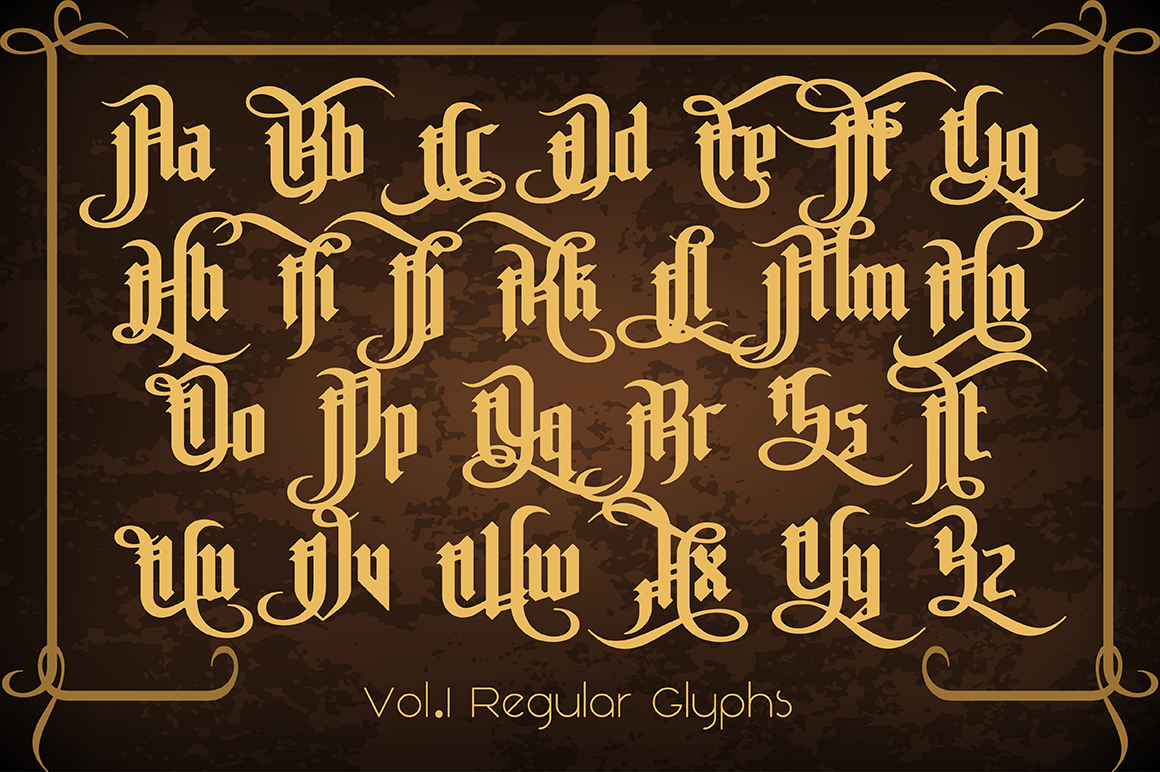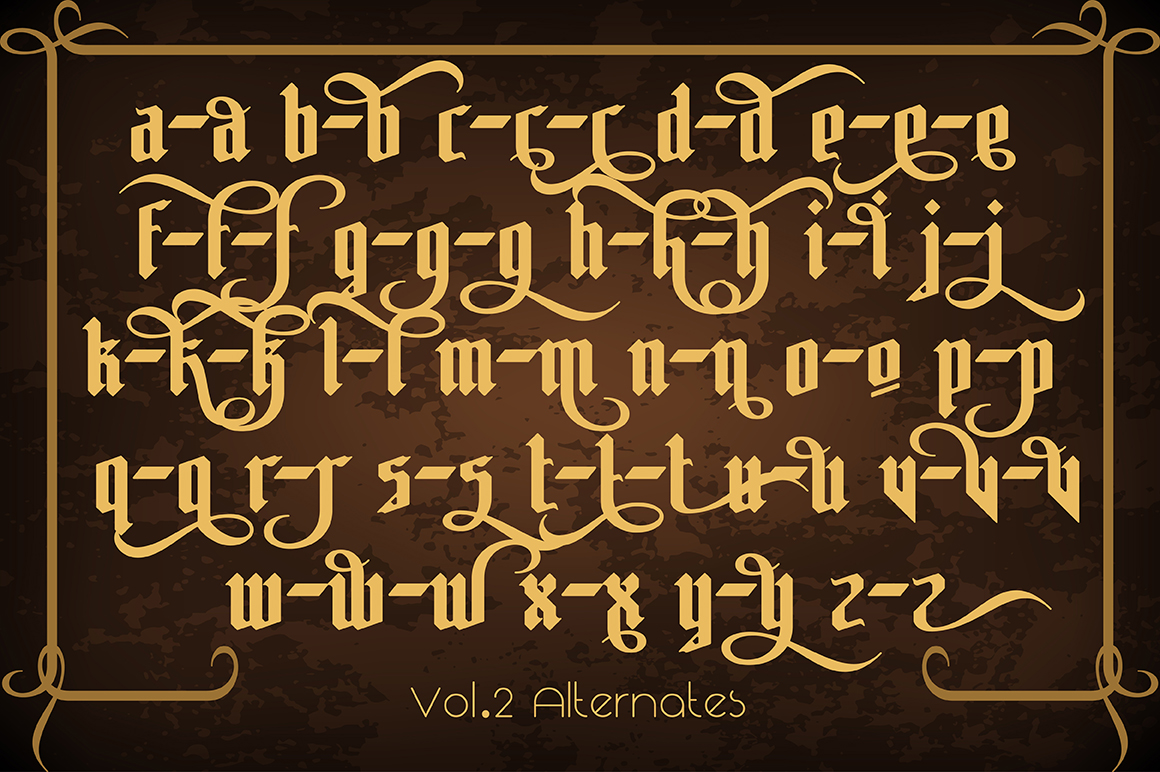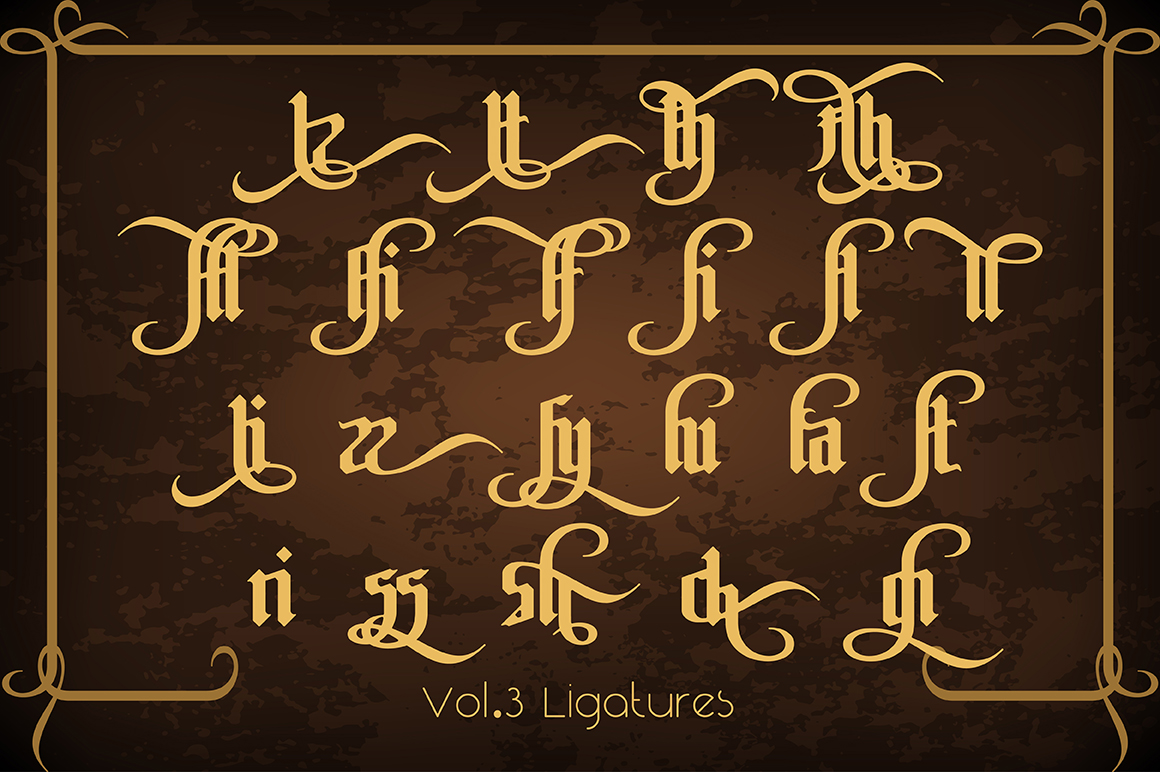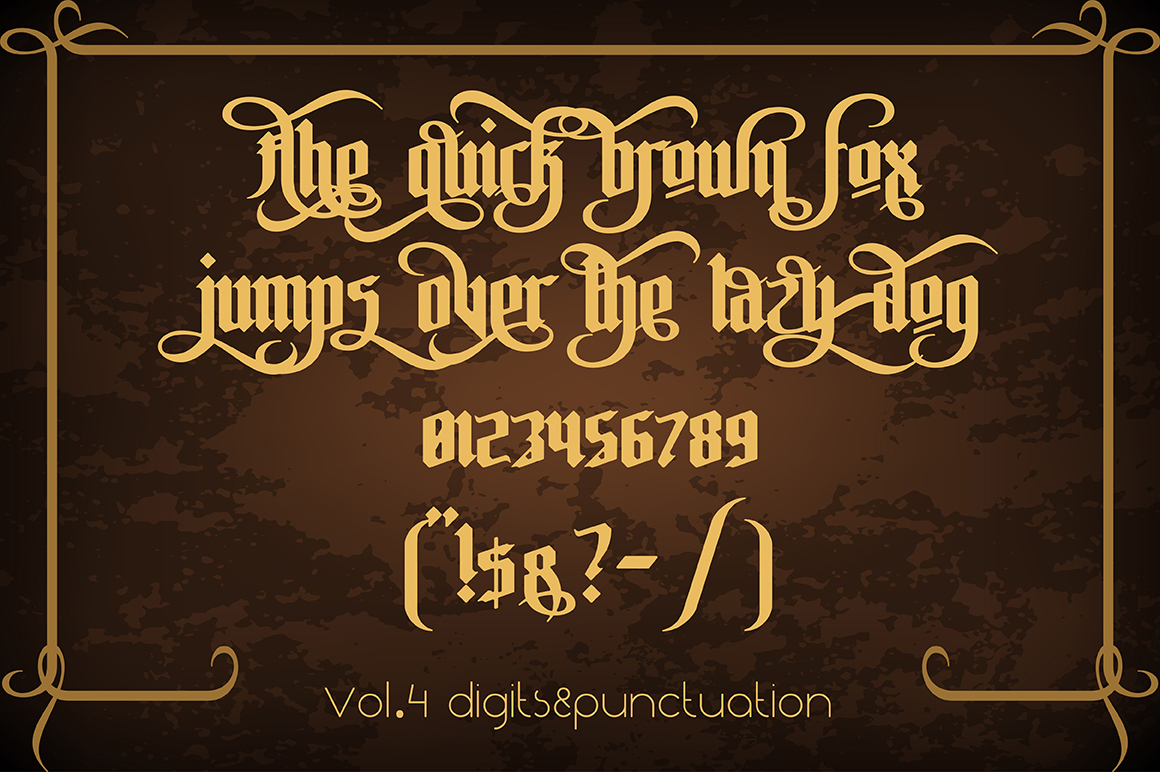
HomeBlackletter FontsThe Pontifice Font Blackletter Fonts The Pontifice Font FacebookXPinterestWhatsApp 1 of 5 The Pontifice Font - 1 The Pontifice Font - 2 The Pontifice Font - 3 The Pontifice Font - 4 The Pontifice Font - 5 About The Pontifice Font The Pontifice is a gothic typeface based on the Phoenix font, but with soft corners and wider glyphs. DOWNLOAD NOW People also explored Baby Asyifa Font Saikon Font Sabyan Font Namira Font Alvyana Fianiz Font Quartell Round Chantily Font Handlight Font Staylive 464 0 TagsThe Pontifice Font Previous articleRot Shield FontNext articleLumberjack Font LEAVE A REPLY Cancel reply Comment: Please enter your comment! Name:* Please enter your name here Email:* You have entered an incorrect email address! Please enter your email address here Website: Save my name, email, and website in this browser for the next time I comment. Personal Use Free Oito Personal Use Free Read more about this font Bright Dreams Personal Use Free Read more about this font Barokah Personal Use Free Read more about this font Malinda Personal Use Free Read more about this font BLOG Modern Sans-Serif Fonts That Brands Love in 2025 In 2025, modern sans-serif fonts remain a top choice for brands looking to project clarity, professionalism, and... How to Install and Use Fonts on Windows, macOS, and Web Projects Fonts That Capture the Spirit of New York City Top 10 Handwritten Fonts That Elevate Your Designs